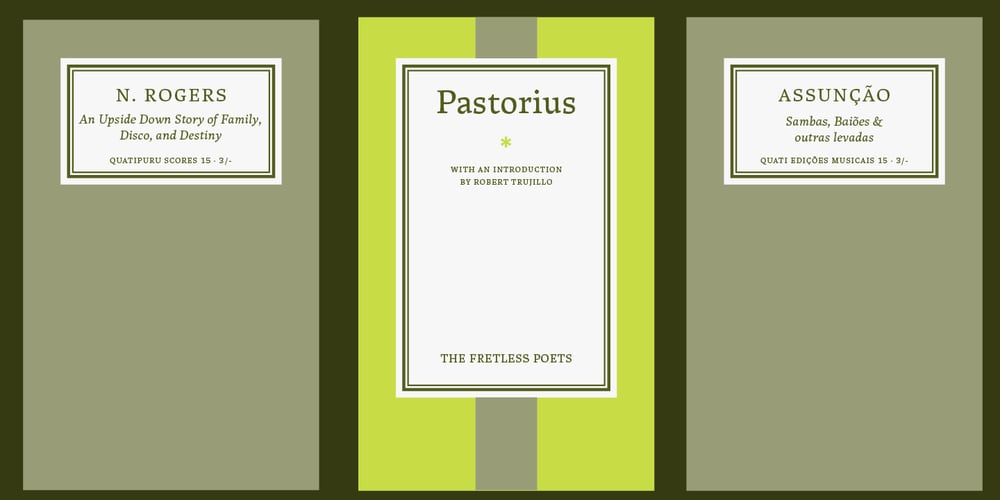
Brasilica Font Family was designed by Rafael Dietsch and published by CAST. Brasilica contains 6 styles and family package options. Brasílica is a robust design, with wide proportions, that assimilates influences both from old style and modern types. This wide shapes, as well as the moderate contrast and sturdy serifs make it suitable to different conditions of printing. The sharp corners, as well as the abrupt connections and terminals are remarkable features of this typeface, that renders a sturdy and crisp texture, with a distinct aspect.